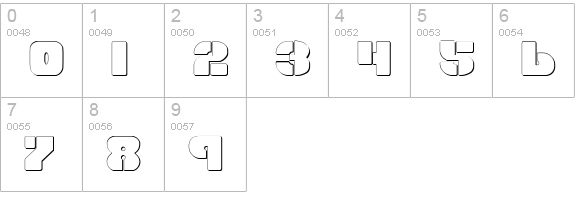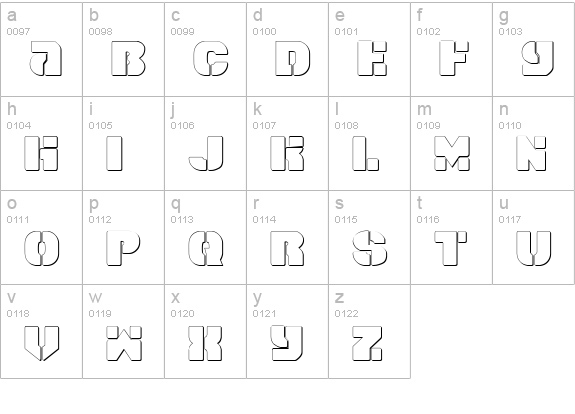
Space Cruiser Shadow Font Details
Introducing Space Cruiser Shadow, a captivating and futuristic font that will transport you to the outer reaches of the galaxy. This font embodies the essence of space exploration, with its sleek lines and awe-inspiring presence. With its unique shadow effect, Space Cruiser Shadow adds depth and dimension to any design project. Whether you're working on a sci-fi movie poster, a futuristic gaming logo, or a cutting-edge website, this font will instantly elevate your creations to new heights. Designed with precision and attention to detail, Space Cruiser Shadow is a true masterpiece. Its bold and assertive letterforms command attention, while its intricate curves and edges create a sense of fluidity and motion. This font embodies the spirit of adventure and discovery, making it perfect for any project that aims to captivate and inspire. But the best part? Space Cruiser Shadow is freely available to download at FontsMarket.com. That's right, you can bring the wonders of the cosmos into your designs without breaking the bank. So why wait? Take your design projects to new frontiers with the mesmerizing Space Cruiser Shadow font.